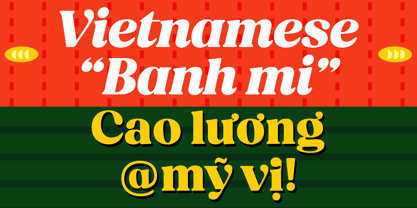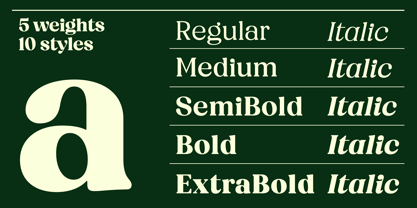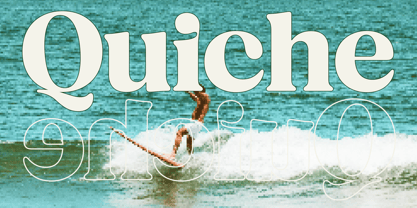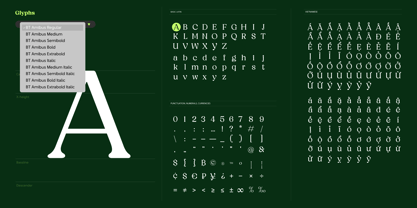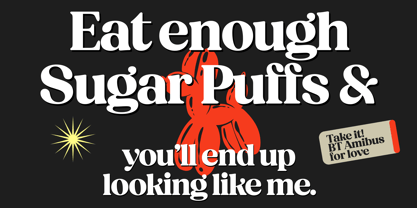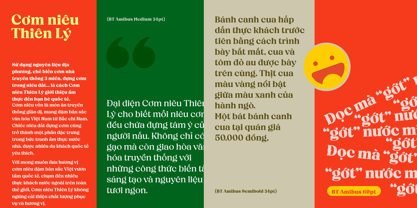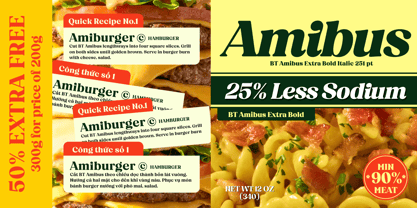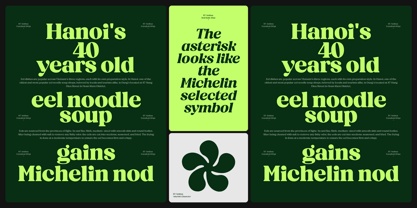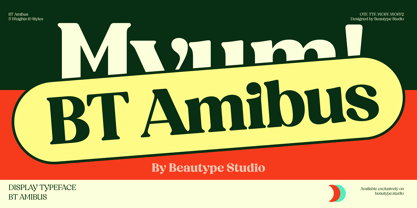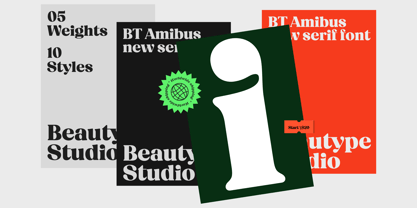
BT Amibus
by BeauType
The BT Amibus Font Family was designed by and published by BeauType. BT Amibus contains 10 styles and family package options. More about this family
BT Amibus is a typeface that blends a nostalgic charm with modern aesthetics, featuring smooth, rounded contours that evoke a friendly and approachable feel. The proportions of BT Amibus are meticulously adjusted for balance and readability, making it suitable for various sizes. The typeface is adorned with vibrant, bright colors that bring a lively, energetic feel, reminiscent of sweet, fresh fruits. BT Amibus is the perfect choice for designers seeking a visual language that combines a playful tone with a blend of nostalgia and modernity